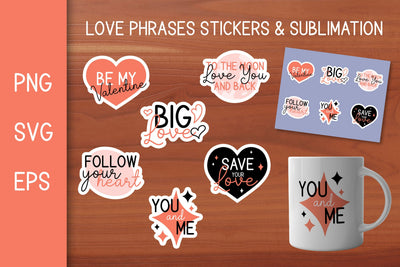
Love Stickers PNG | Valentines Day SVG | Quotes Sublimation
Love Stickers PNG | Valentines Day SVG | Quotes Sublimation is collection of Love Phrases in Handwritten style, cute colorful design.
Inspirational and motivational quotes for your crafts! Valentines Day Sublimation designs will decorate your things.
Quotes: Be my Valentine, Love You to the Moon and Back, You and Me, Save your love, Follow your heart, Big Love.